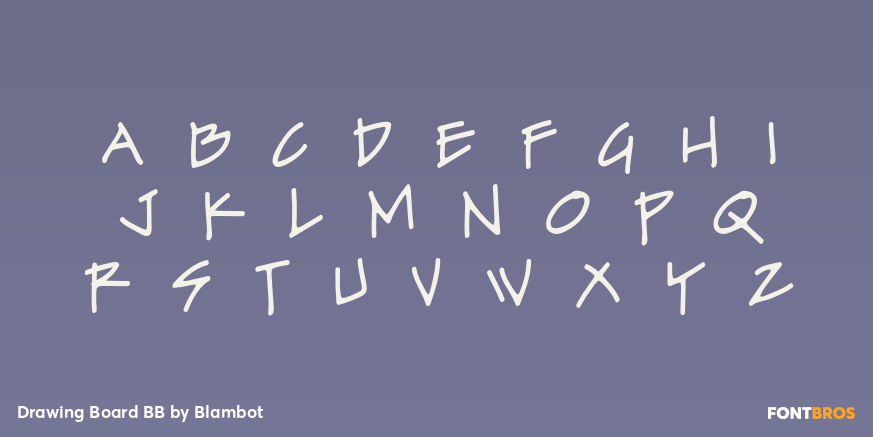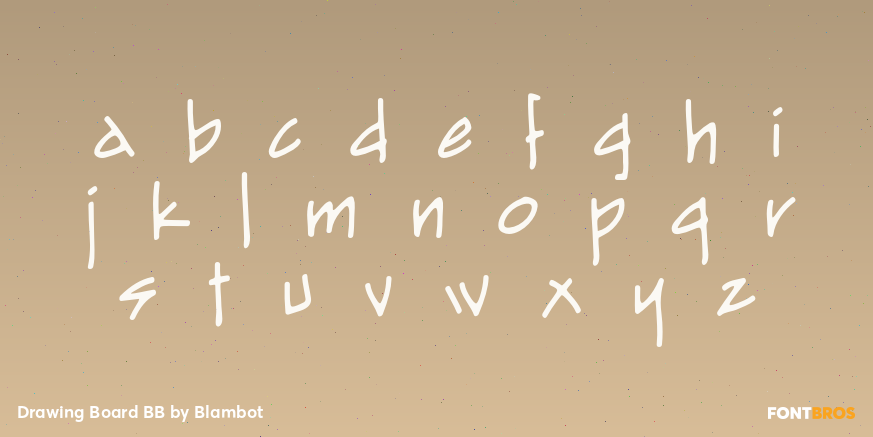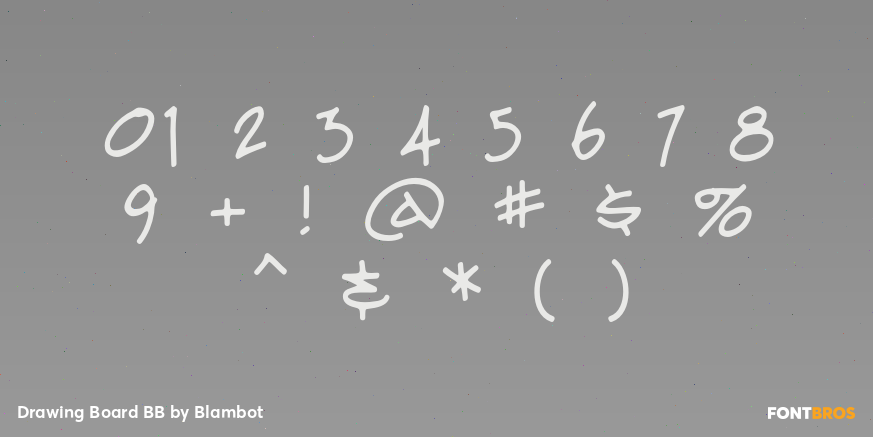
Drawing Board BB
Font Family by Blambot
An upper and lowercase font family in a casual Architect/Engineer style of handwriting.
Plenty of fractions and the "|" key is the architectural symbol for "center-line".
Regular and Italic Included plus a hefty compliment of European characters.